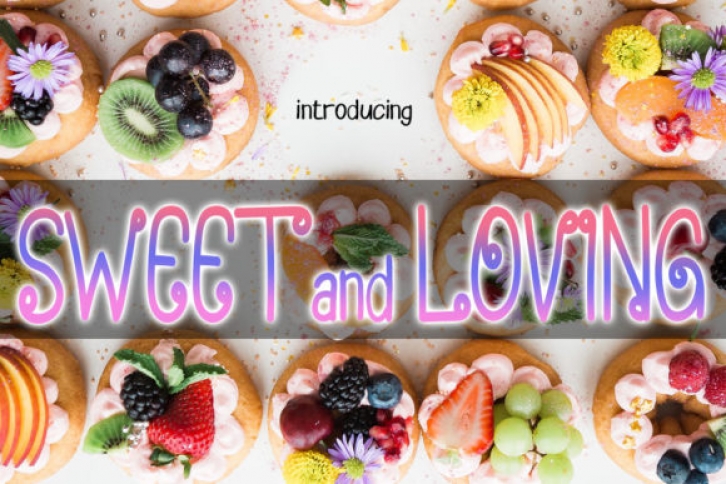
Sweet and Loving is a cute and unique looking display font. This font is neatly crafted and highly detailed. Whatever the topic, this font will be a wonderful asset to your font library, as it has the potential to enhance any creation.